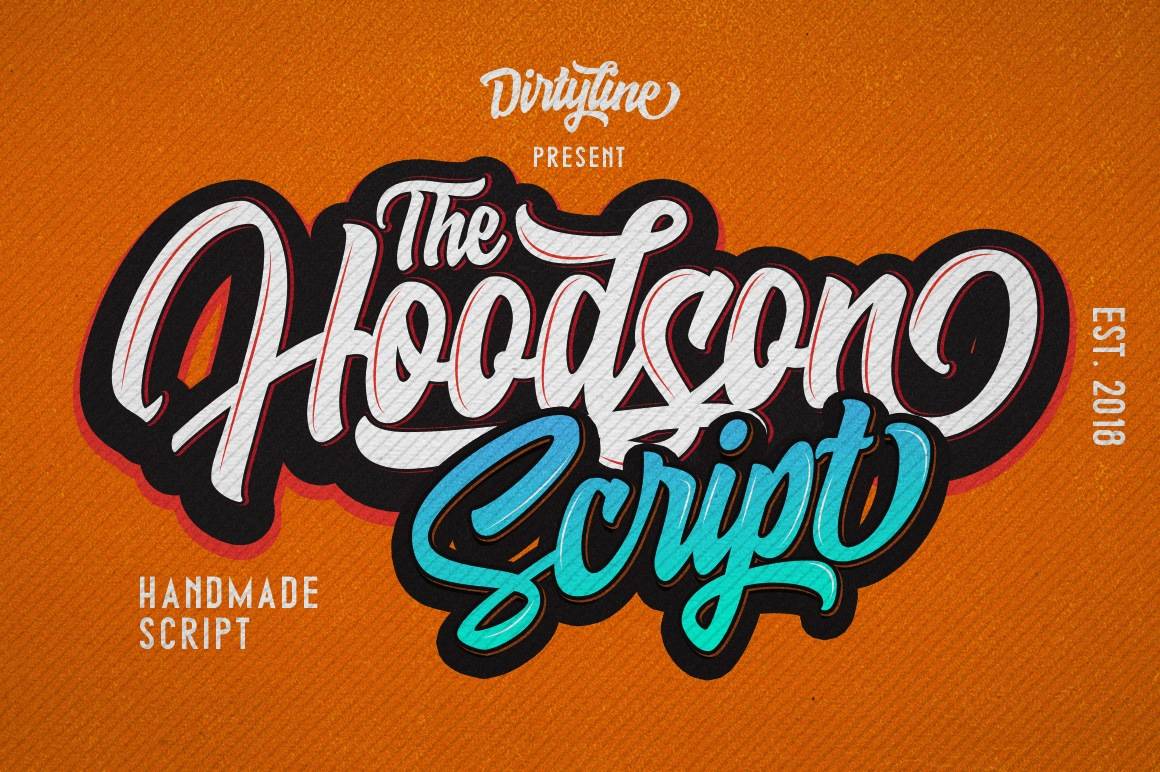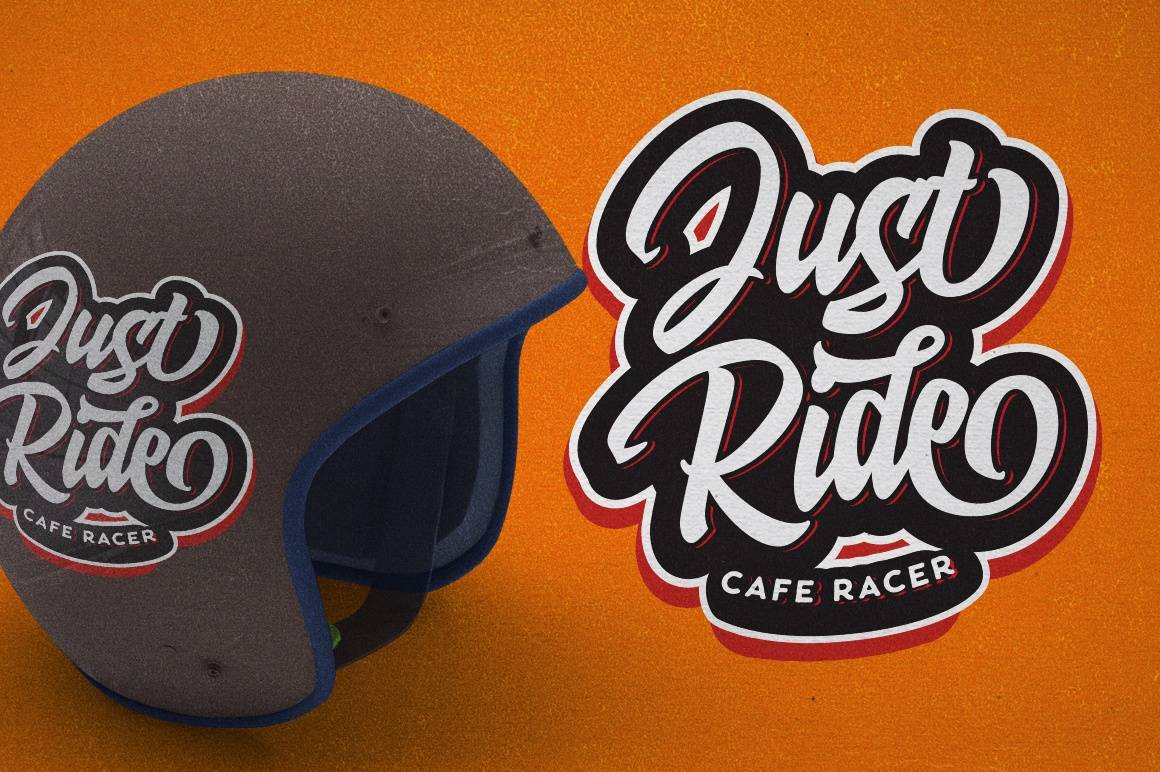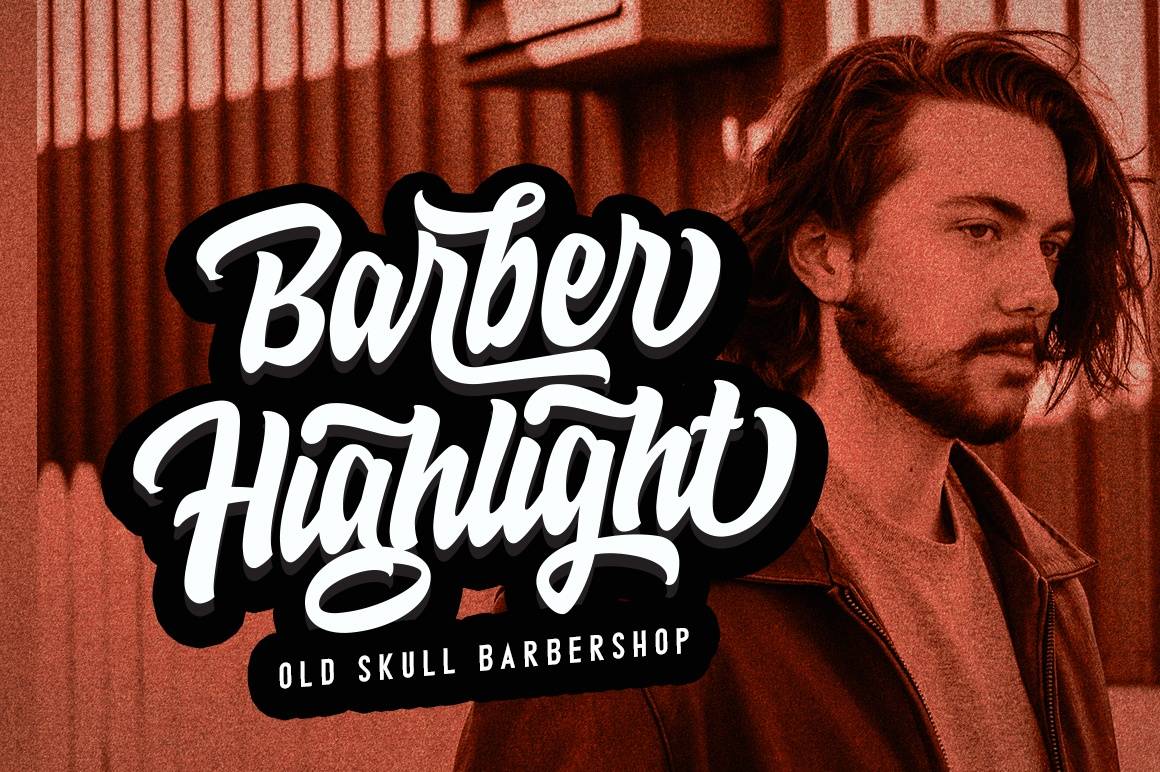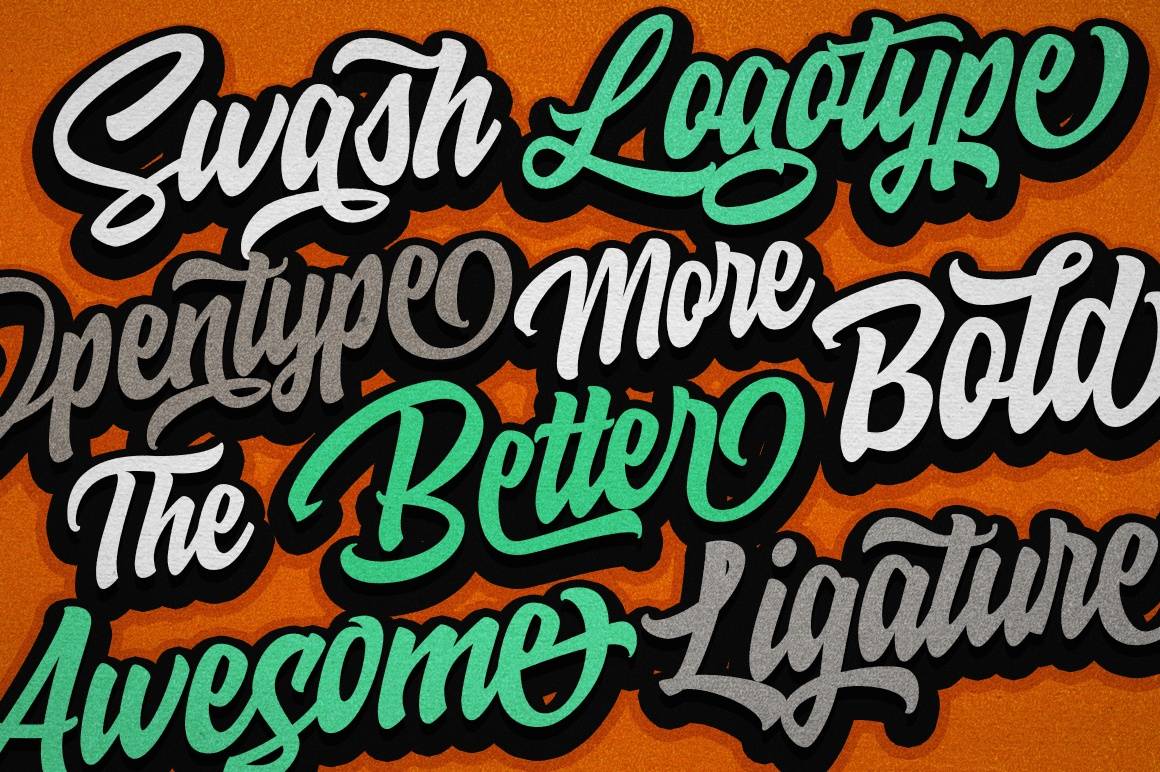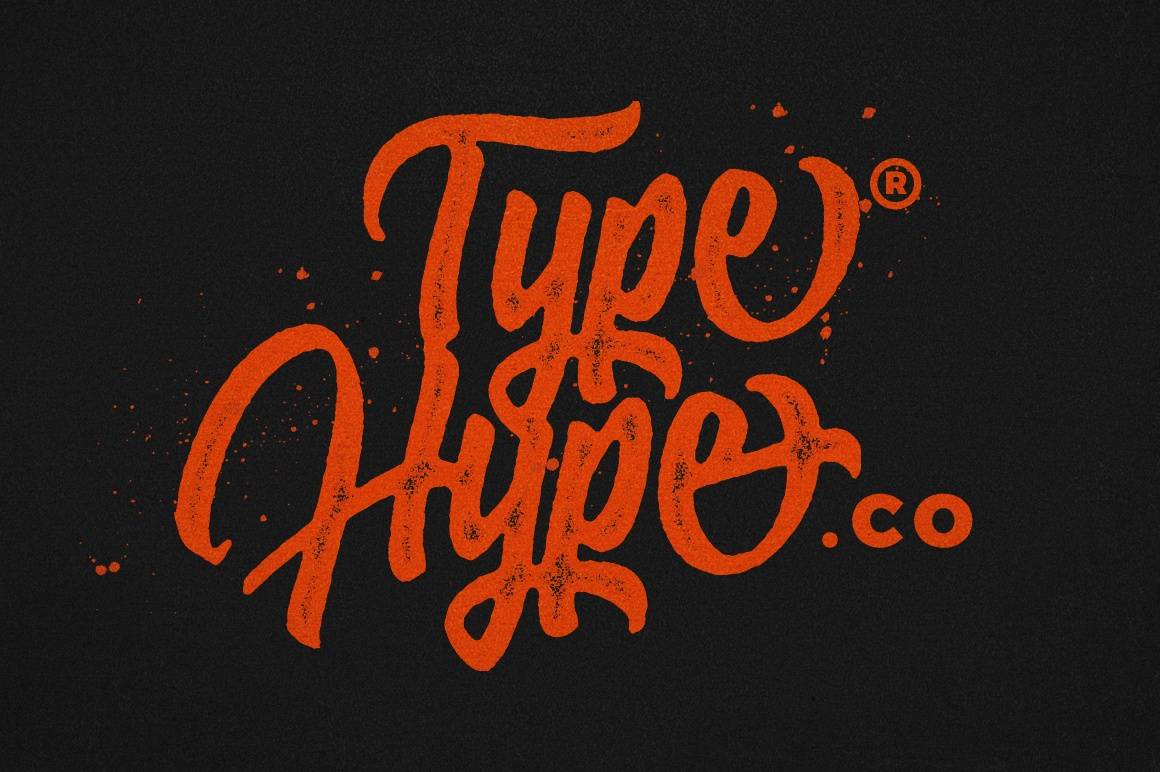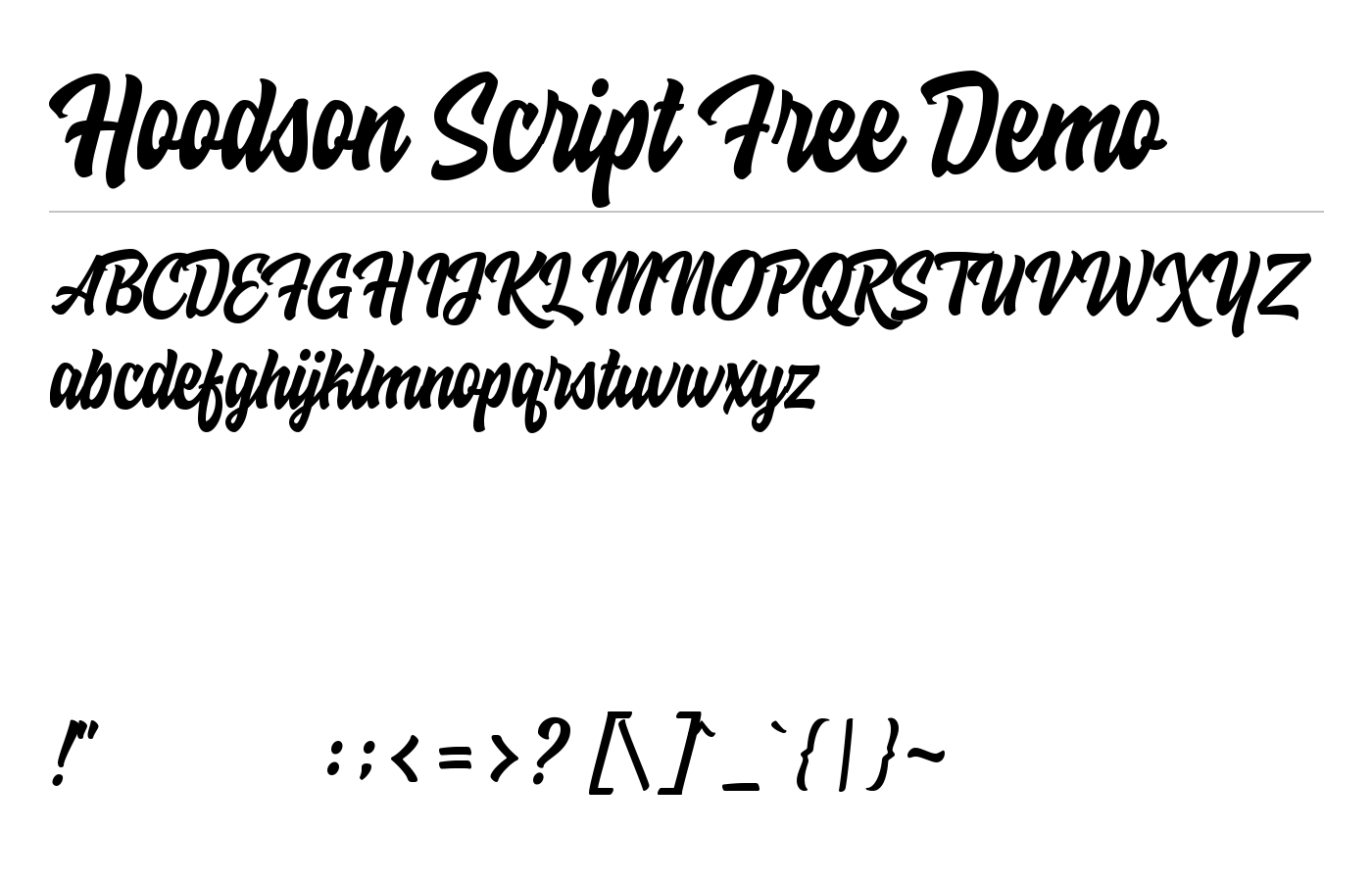
Hoodson Script is a bold, energetic script font with smooth, flowing strokes that combine a casual yet confident style. Its moderately high x-height and slightly condensed letterforms make it highly readable while maintaining a lively, handwritten character, perfect for eye-catching logos, invitations, and branding that seeks a friendly and approachable vibe. This font works best in headlines or display use where its playful elegance can truly shine.
Hoodson Script
About Hoodson Script
| Font family | Hoodson Script |
| Designer | Hendra Maulia |